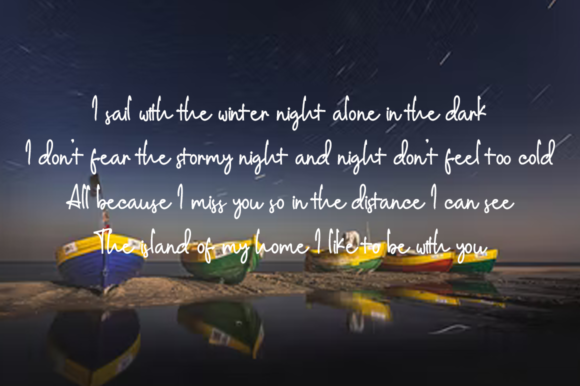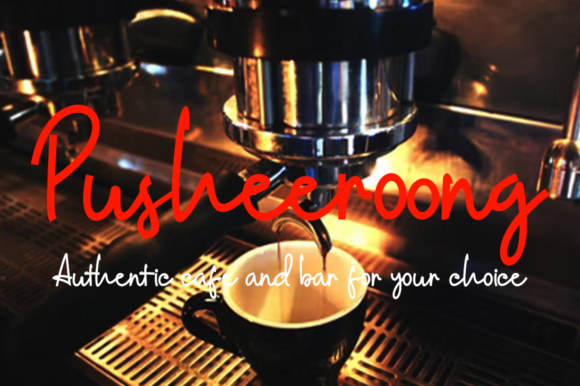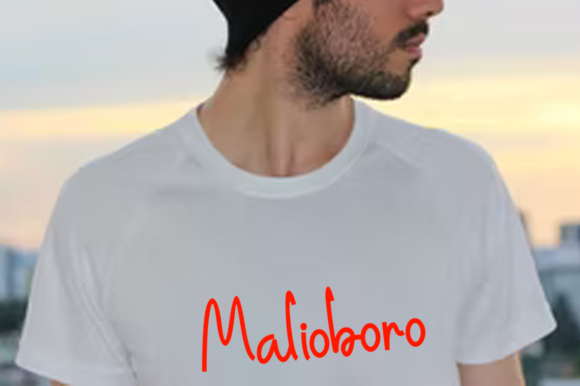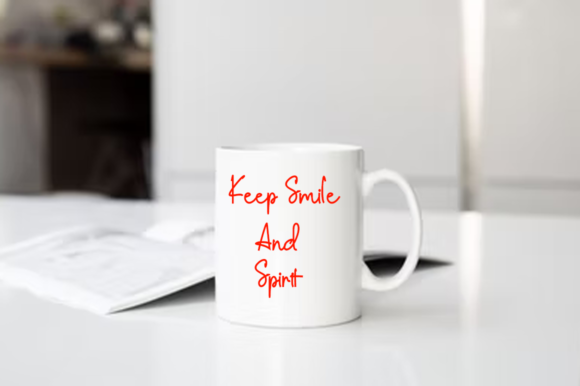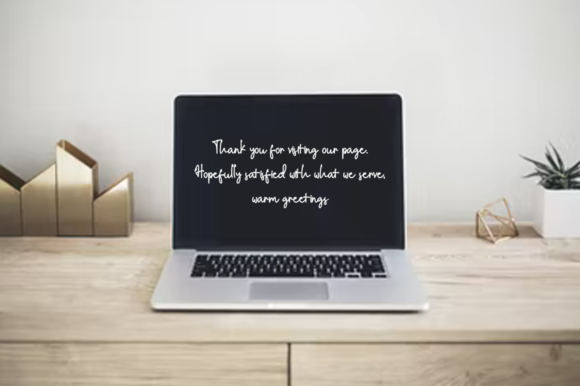
The Designer’s Delight: Aurantimaculata Font
I still remember the frustration of working on a project, hours spent crafting the perfect design, only to realize that the font I chose didn’t quite fit. The client wanted something fresh, yet elegant; something that would make their brand stand out. It was then that I stumbled upon the Aurantimaculata font, and it became my go-to for many projects thereafter. In this article, I’ll share with you why I fell in love with this font, its features, and how you can make the most of it in your designs.
• ✨ Clean and simple handwritten style that exudes elegance
• 🌈 Natural and unique style fitting for a wide range of designs
• 💻 Highly versatile for both digital and print projects
While Aurantimaculata is an excellent font, there are a few things to keep in mind:
• ⚠️ Limited availability of language support, mainly focused on English and some European languages
• 🤔 May not be the best fit for very formal or corporate designs due to its casual nature
A Practical Guide: Using Aurantimaculata in Your Designs
The Story Behind Aurantimaculata
The creation of Aurantimaculata is a story of passion and dedication. While the actual designer remains a bit of an enigma, it’s believed that the inspiration came from the natural world and a desire to create a font that feels both organic and sophisticated. The result is a font that not only looks beautiful but also feels approachable and friendly.
Is Aurantimaculata suitable for body text? While Aurantimaculata is beautiful and highly legible, its handwritten nature makes it more suitable for headings and short paragraphs. For longer body text, a more traditional serif or sans-serif font might be more appropriate.
Aurantimaculata is more than just a font; it’s a tool that can elevate your designs, making them more engaging and visually appealing. Whether you’re a designer, crafter, or hobbyist, this font has the potential to become a favorite in your creative arsenal.